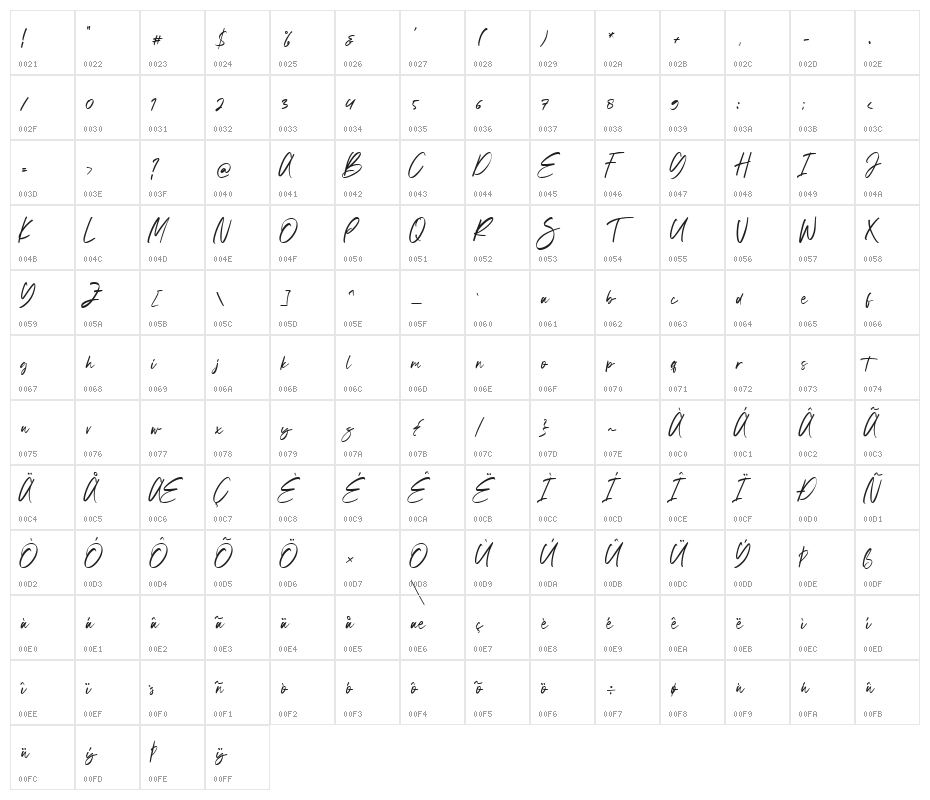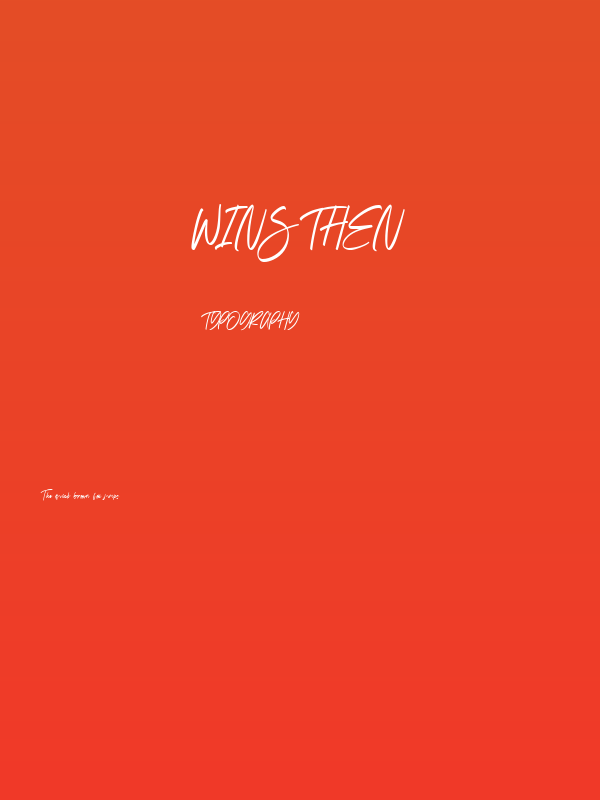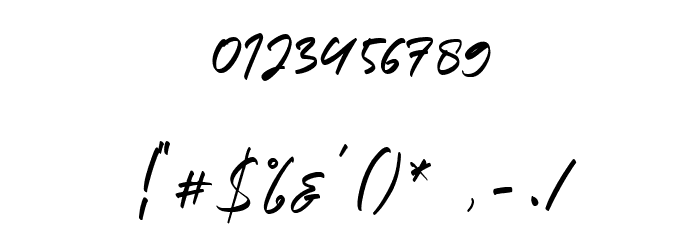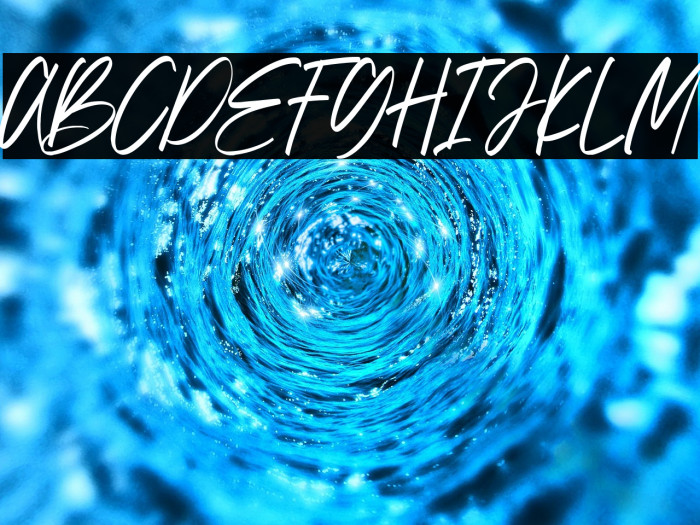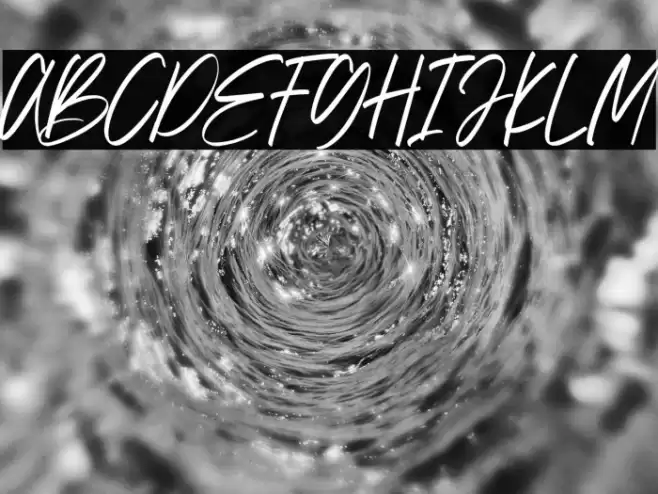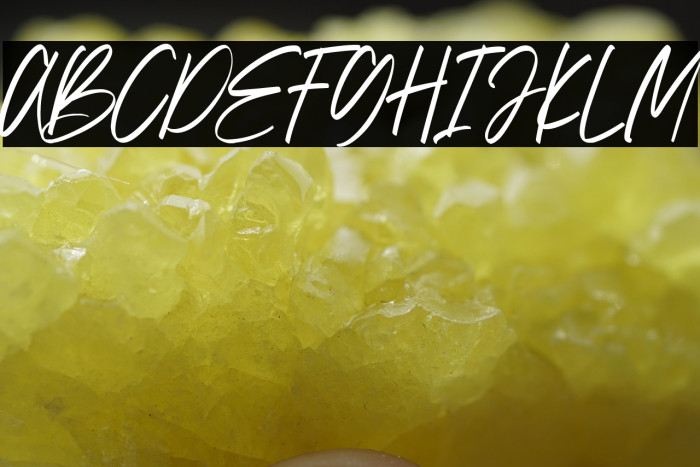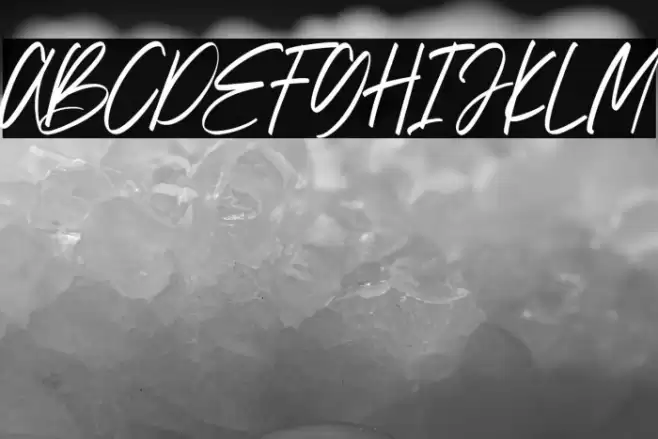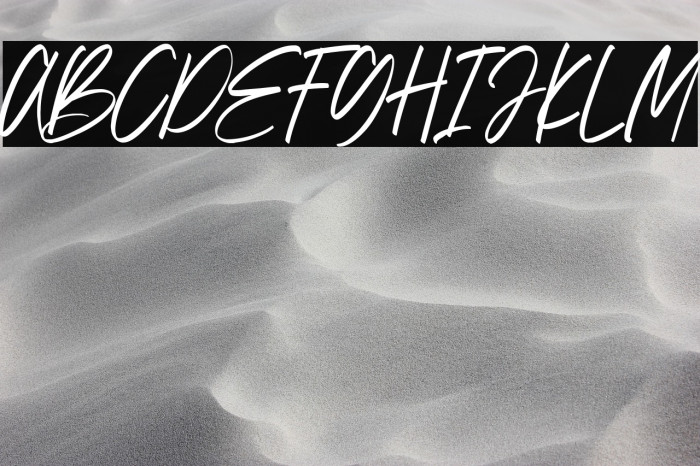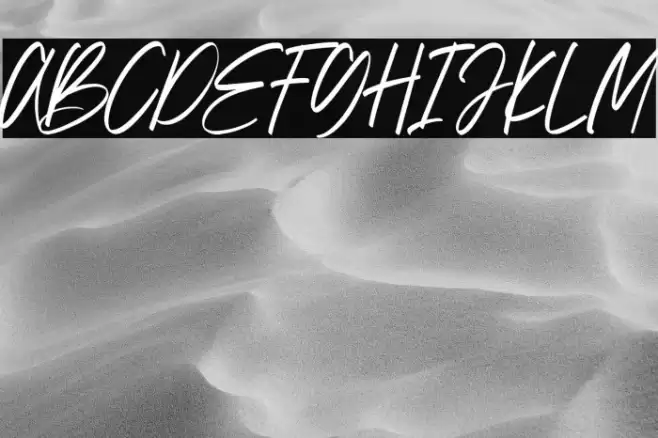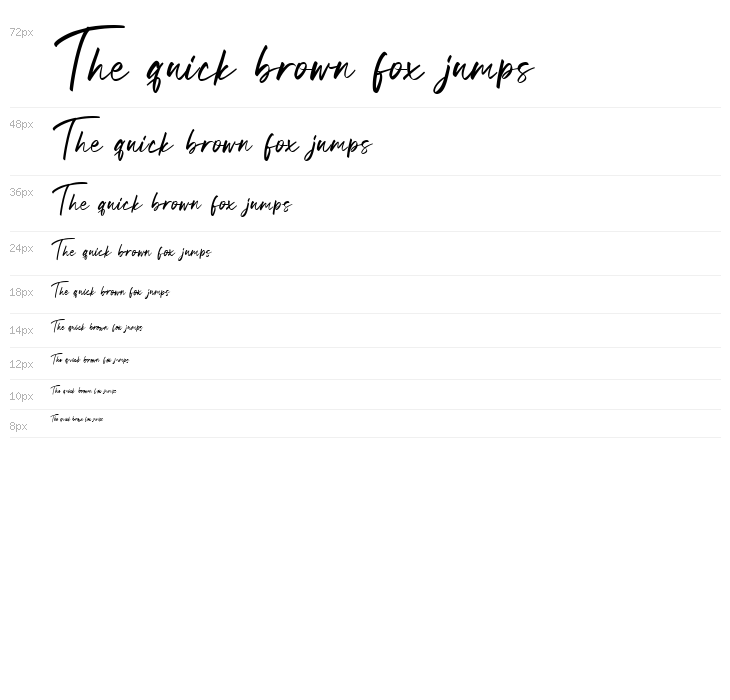
Winsthen Font
Winsthen Description
This font features a dynamic and fluid script style, characterized by its elegant and flowing letterforms. The uppercase letters exhibit a bold and confident presence, with sweeping curves and a sense of movement. The lowercase letters maintain a consistent style, offering a harmonious blend of readability and artistic flair. The numerals are well-integrated, matching the overall aesthetic with their smooth and rounded shapes. Special characters are thoughtfully designed, adding versatility to the font. This typeface exudes a sense of modern sophistication, making it suitable for a variety of creative applications.
| Use Case | Logos, Invitations, Branding |
| Proposed Projects | Ideal for wedding invitations, branding, logo design, and elegant stationery. |